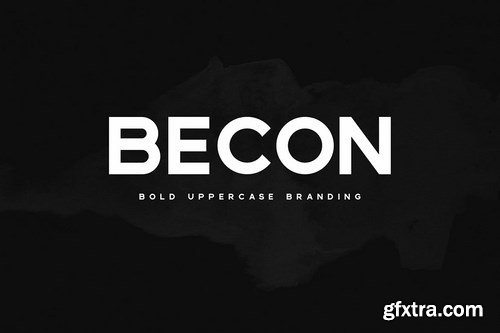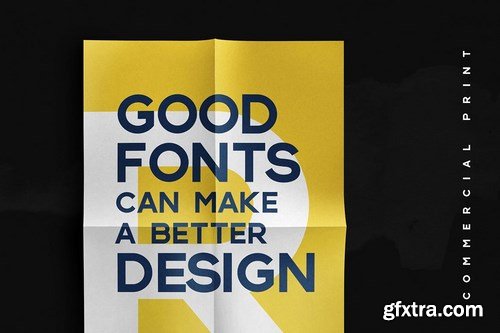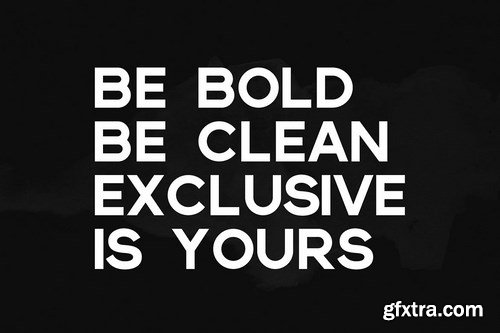
Please Note this font only uppercase.
Becon font is bold san serif. Perfect for any print product such a poster, flayer, t-shirt,etc. this font is match to create your branding product or personal project.